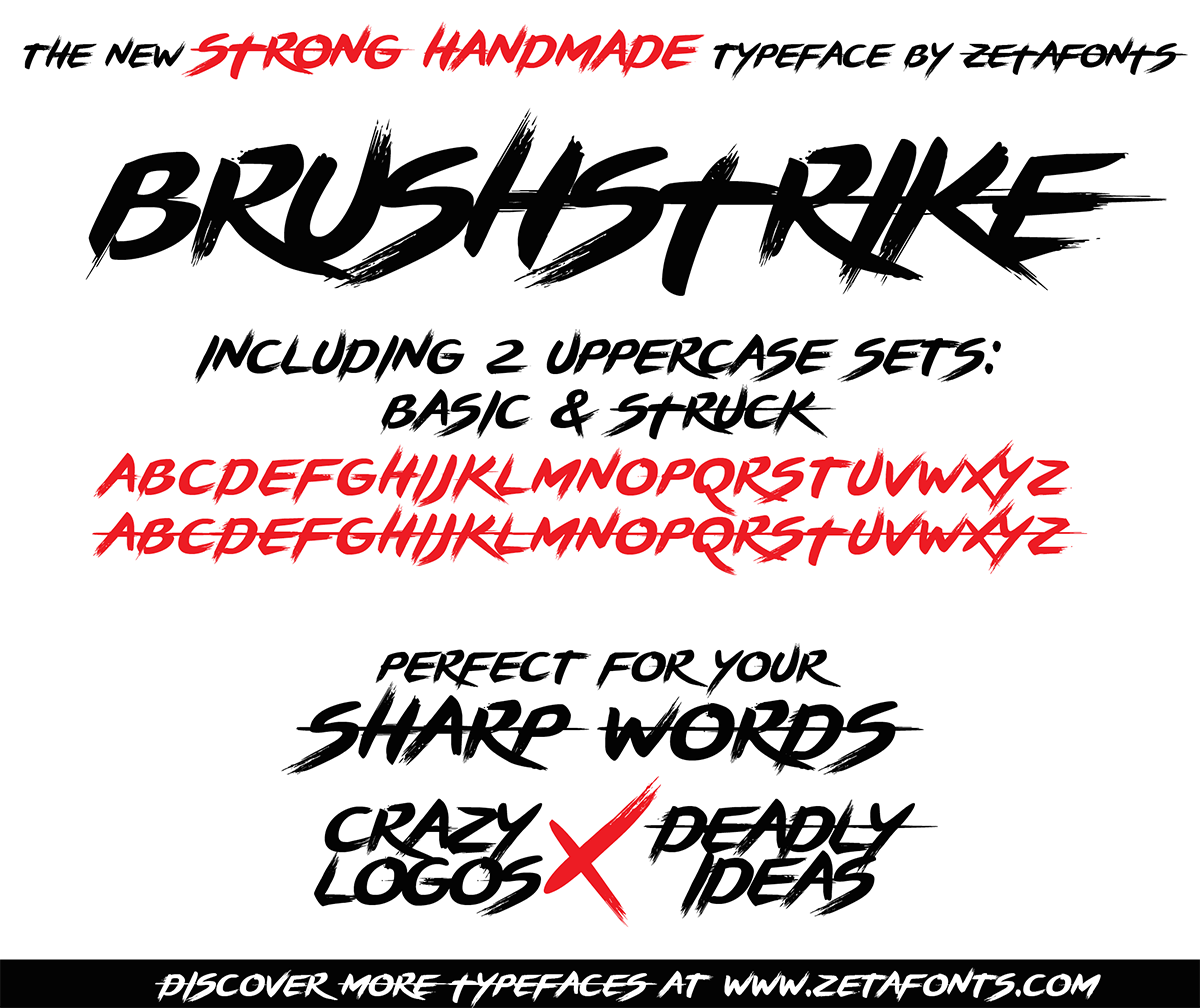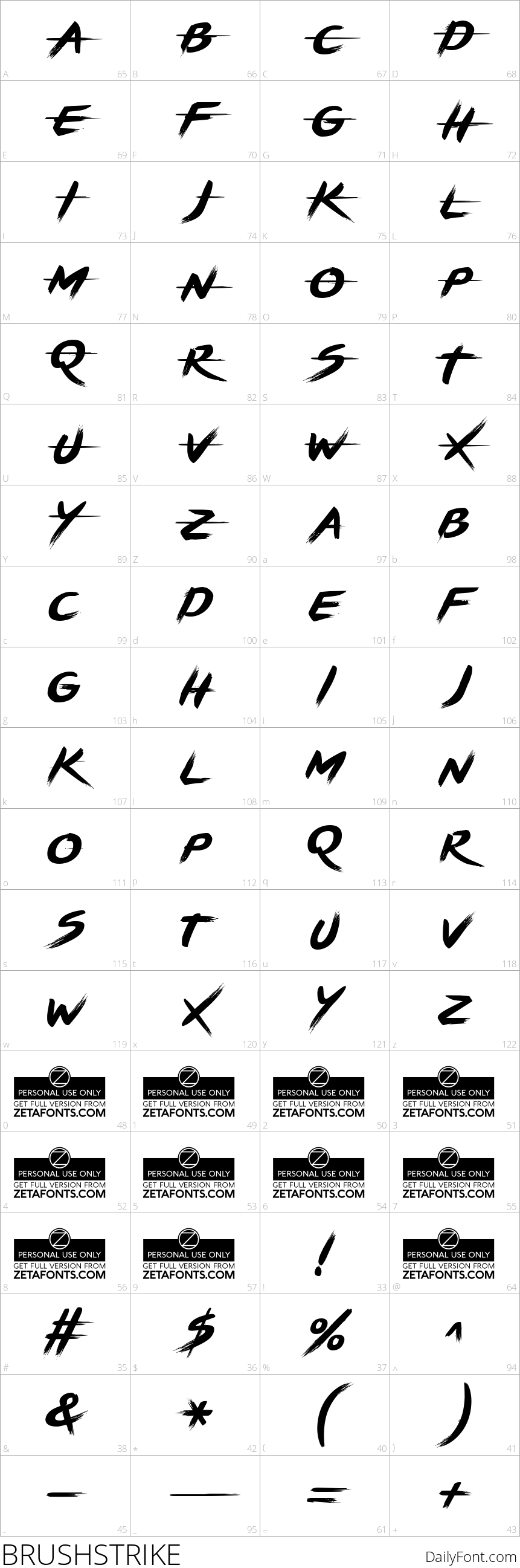
Brushstrike
Gestural dry-brush script for bold logos and word highlights
BrushStrike is a striking typeface family creatively designed by Francesco Canovaro. This unique font showcases a dynamic and gestural brush type design, offering a fresh approach for modern typography. Notably, BrushStrike does not include a lowercase letter set. Instead, it features an impressive doubling of uppercase letters, complete with a striking strikethrough alternate set, perfect for making bold statements in logo design and emphasizing unique words.
The BrushStrike family comprises two thoughtfully designed weights: Brushstrike Light, also known as Lightstrike, and the heavier regular weight. These complementary styles work seamlessly together, providing designers with versatility for various projects. The light weight is particularly effective when used in white on dark backgrounds, creating eye-catching light effects that enhance the visual appeal of any design. Whether you're looking to create an unforgettable logo or simply want to highlight particular words with flair, BrushStrike is the font that delivers a bold and artistic touch to your designs.